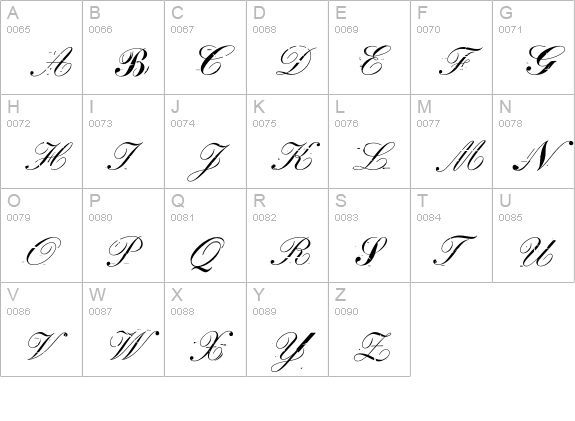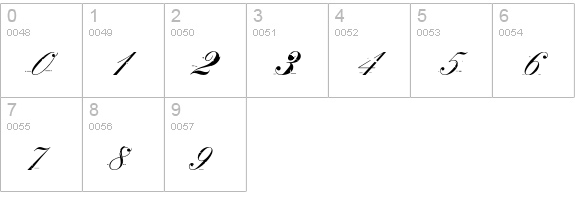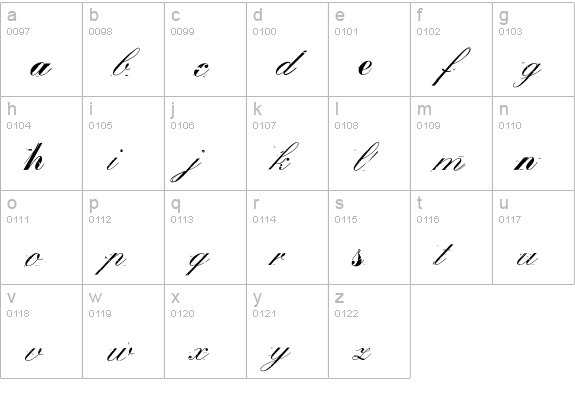
Falseidol-Italic is a distinctive, italic variant in the Falseidol typeface family \xE2\x80\x94 well suited to design and typography projects.
Falseidol-Italic font is a stunning display typeface that exudes elegance and sophistication. With its unique slanted design and intricate details, this font is perfect for adding a touch of luxury to any project. The italicized style of Falseidol-Italic font brings a sense of modernity and flair, making it a versatile choice for various design applications. What sets Falseidol-Italic font apart is not only its striking appearance but also its availability as a free download at FontsMarket.com. This means that you can easily access this beautiful font without any cost, making it a valuable addition to your font collection. Whether you're designing a logo, poster, invitation, or any other creative project, Falseidol-Italic font is sure to elevate your design and leave a lasting impression. Download it for free today and unleash the power of this exquisite typeface in your next project.